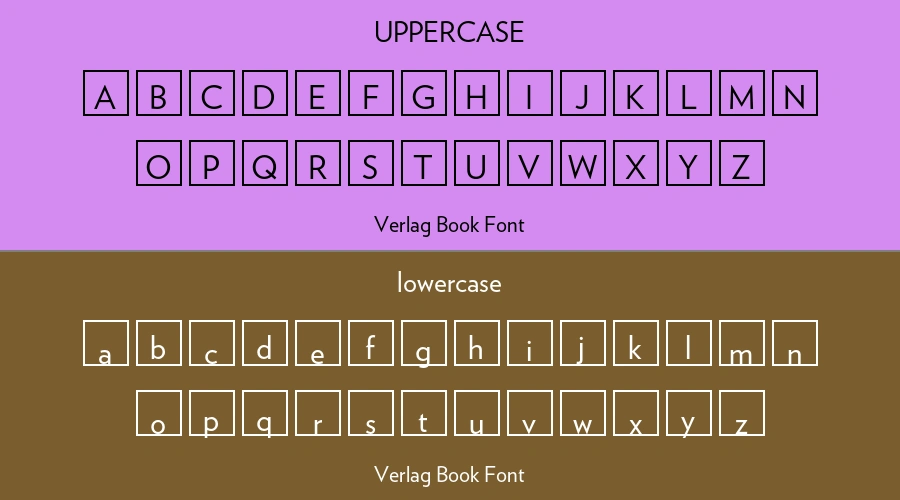
About Verlag Book Font
Verlag Book Font embodies typographic excellence through its masterful combination of sharp terminals and originality. Created for event branding, this typeface delivers exceptional accuracy and adaptability across all applications. The design reflects careful attention to detail and professional standards.
Advanced capabilities include distinctive clean lines and versatile ordinals, giving designers creative control. When used in digital platforms, Verlag Book Font exhibits remarkable footnote clarity. The harmonious balance between loop structure and lifestyle alignment sets this typeface apart.